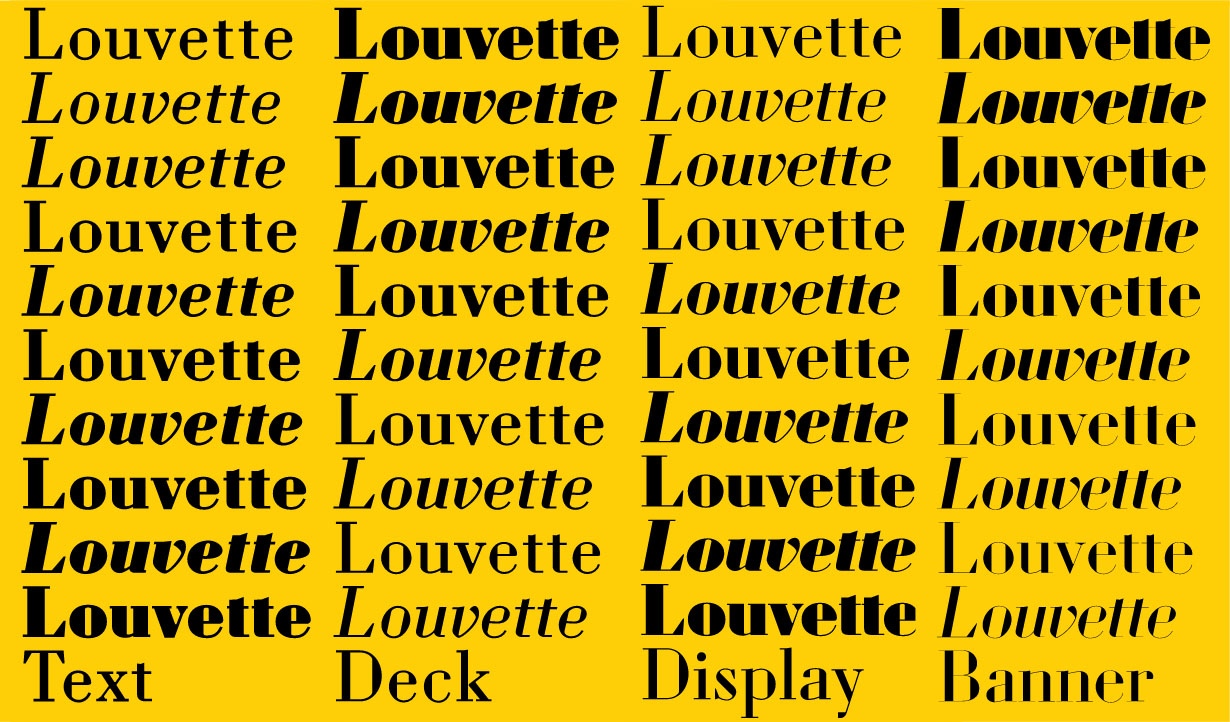
Louvette Font
Louvette Font is perfect for romantic wedding invitations, luxury perfume branding, high-end fashion magazines, elegant jewelry packaging, sophisticated beauty campaigns, premium spa marketing, boutique hotel branding, fine dining menus, artistic gallery exhibitions, and chic lifestyle publications.
What makes Louvette Font exciting is its sophisticated romance that perfectly captures Parisian elegance and timeless feminine grace. This enchanting typeface combines delicate curves with refined sophistication, creating letterforms that communicate luxury, romance, and exquisite taste. The font's elegant character and French-inspired aesthetics make it ideal for brands seeking to evoke the glamour of haute couture, the charm of Parisian boutiques, and the allure of sophisticated femininity.
The Louvette Font family includes Regular, Bold, Light, Medium, Italic, Script, Ornamental, and Decorative variants. Each weight maintains the font's romantic elegance while providing comprehensive typographic flexibility for sophisticated brand identity systems and luxurious feminine design applications across premium market segments.
Whether you're developing luxury fashion identities, creating romantic marketing campaigns, designing premium beauty packaging, or crafting elegant wedding materials, Louvette Font delivers unmatched sophistication and romantic charm. Its refined presence makes it perfect for luxury fashion houses, premium beauty brands, romantic event planners, and sophisticated lifestyle companies seeking authentic Parisian representation.
The font's graceful proportions and delicate details create an intimate reading experience that resonates with audiences seeking luxury, romance, and sophisticated beauty. Each letterform has been lovingly crafted to preserve French elegance while maintaining modern readability standards and professional presentation quality.
This versatile typeface excels in luxury brand environments, offering designers the sophistication needed for comprehensive romantic brand communication strategies. The extensive character set includes elegant alternates, romantic ligatures, and decorative elements for premium feminine market positioning and sophisticated brand storytelling.
Embrace the power of sophisticated design that celebrates timeless feminine elegance and romantic luxury.